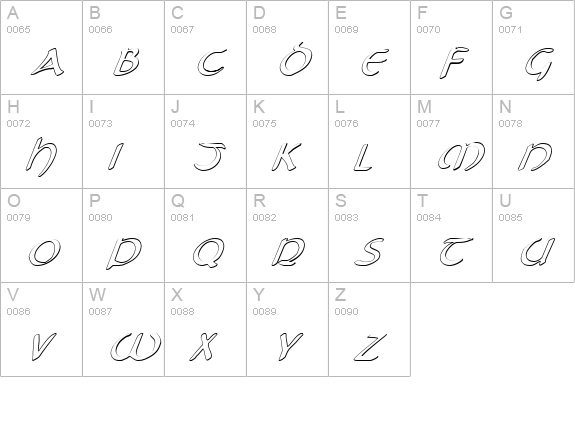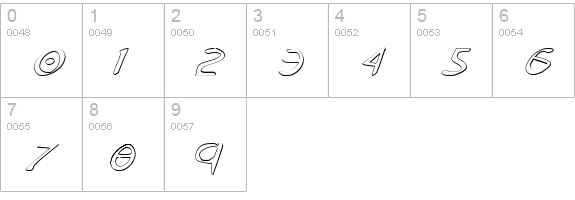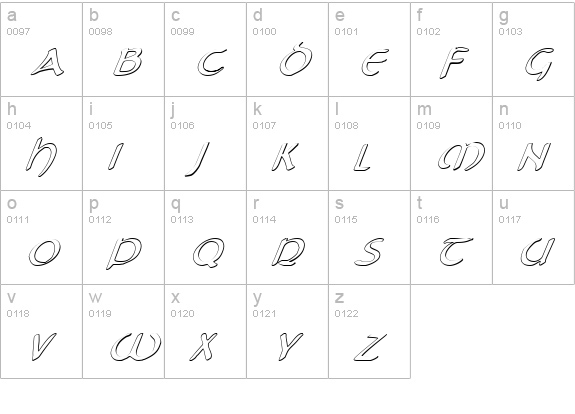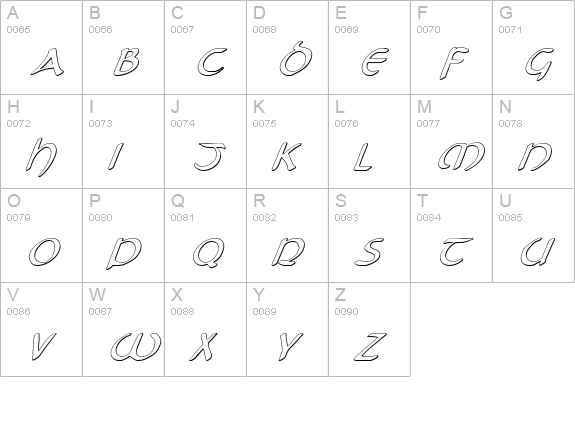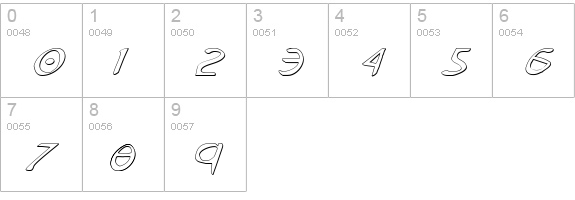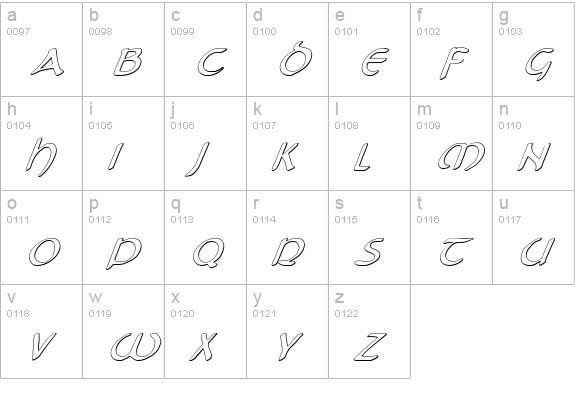
Tristram Shadow Italic is a distinctive, italic variant in the Tristram typeface family \xE2\x80\x94 well suited to design and typography projects.
Tristram Shadow Italic font is an elegant and sophisticated typeface that exudes a sense of mystery and intrigue. Its sleek and stylish design makes it perfect for adding a touch of class to any project. The italicized letters give the font a dynamic and modern look, making it ideal for use in headlines, logos, and other design elements. What sets Tristram Shadow Italic font apart is its unique blend of classic and contemporary elements, creating a truly versatile typeface that can be used in a variety of design contexts. Whether you're working on a branding project, a website design, or a print publication, this font is sure to make a statement. Best of all, Tristram Shadow Italic font is available for free download at FontsMarket.com. This means that you can easily access this stylish typeface without breaking the bank. So why wait? Add a touch of sophistication to your next project with Tristram Shadow Italic font.